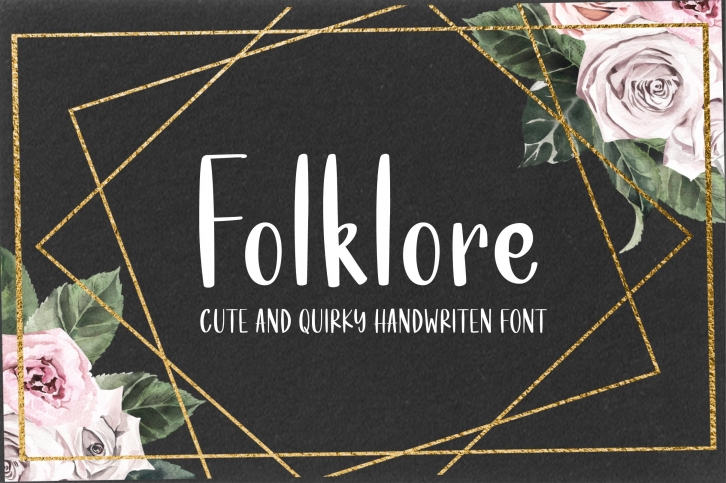
Folklore is a gorgeous font that was realeased on March 18, 2021. The font can be used in many style contexts and design environments. Perfect for invitations, magazines, websites, logos, and more! It was designed by Sunday Nomad and the file size is 19.88 MB. Thanks for checking out this font!